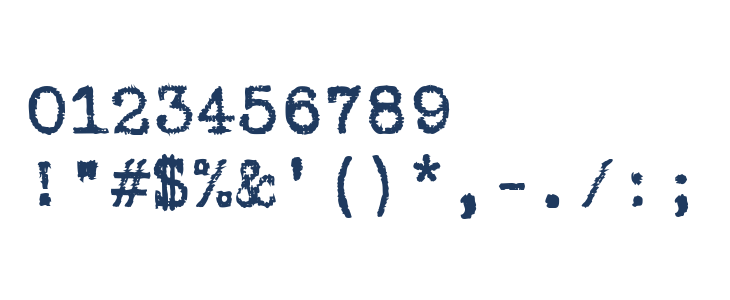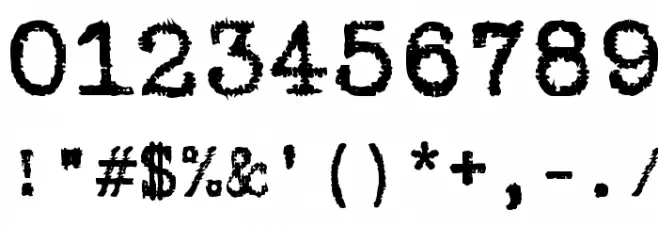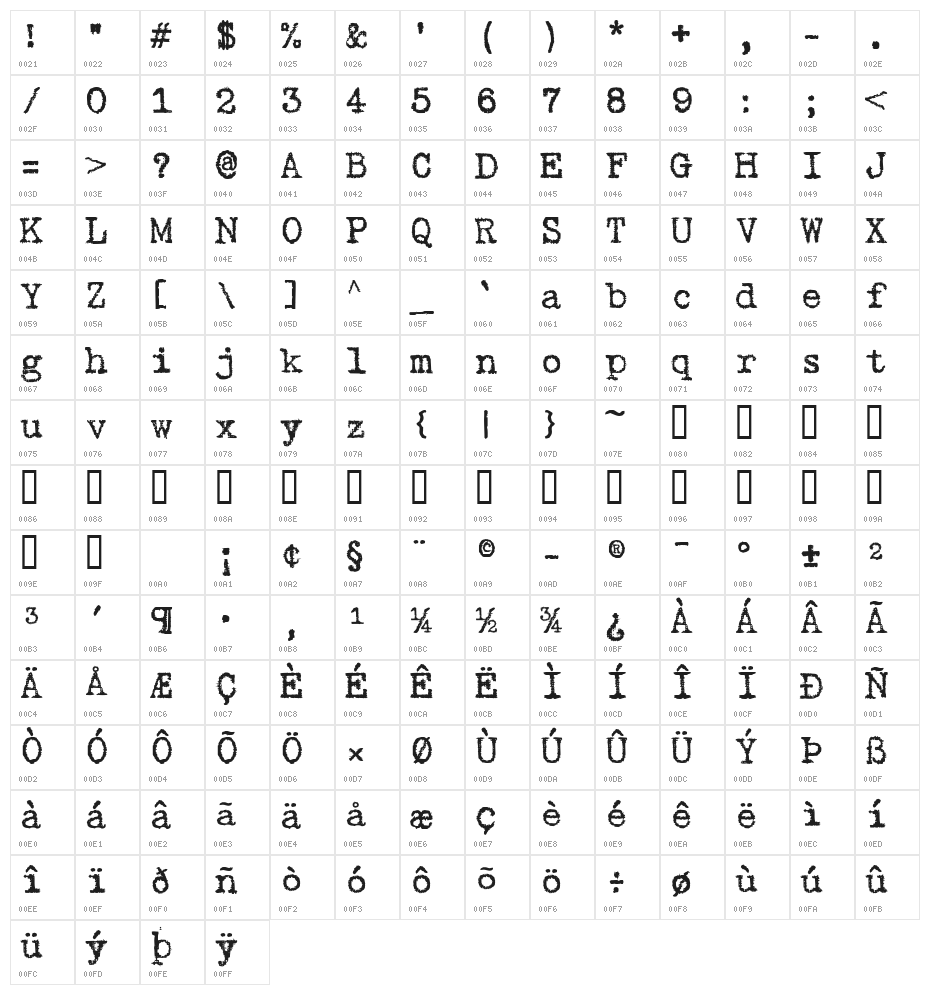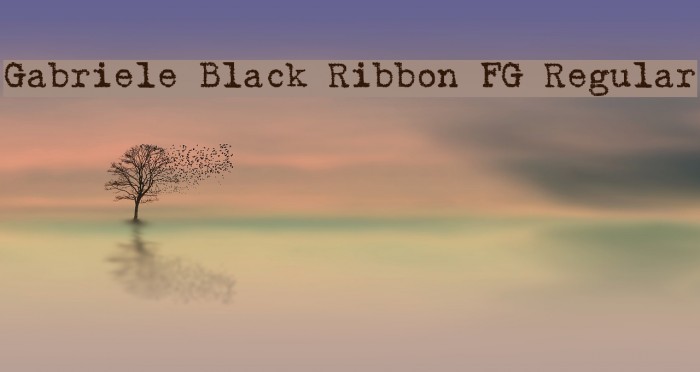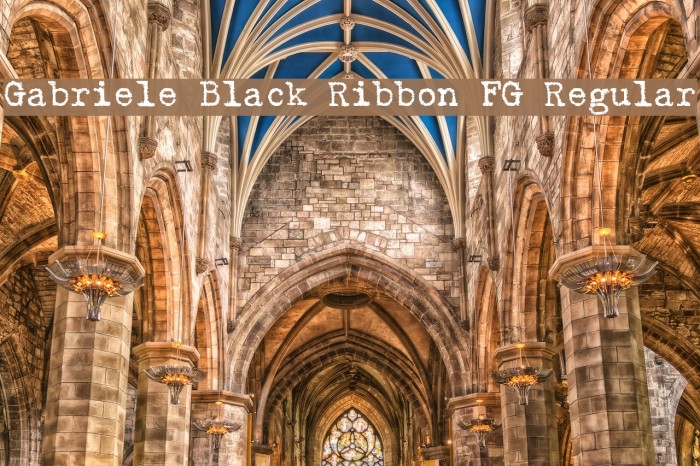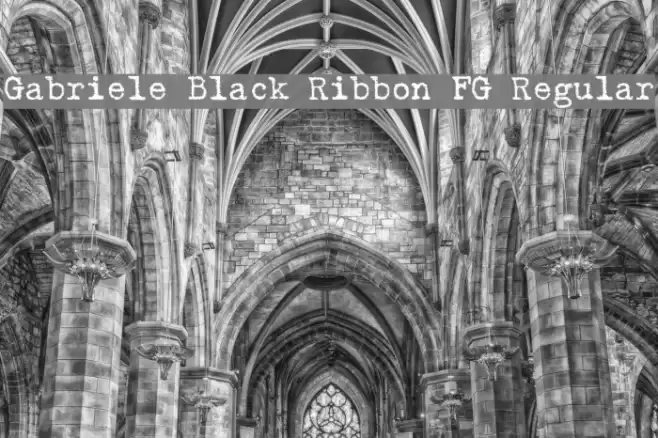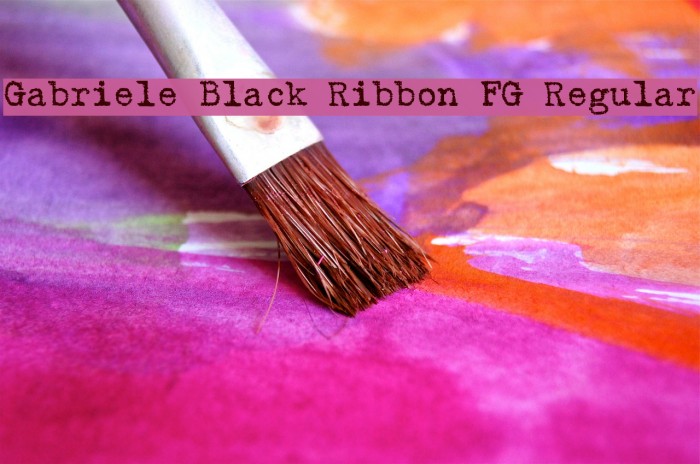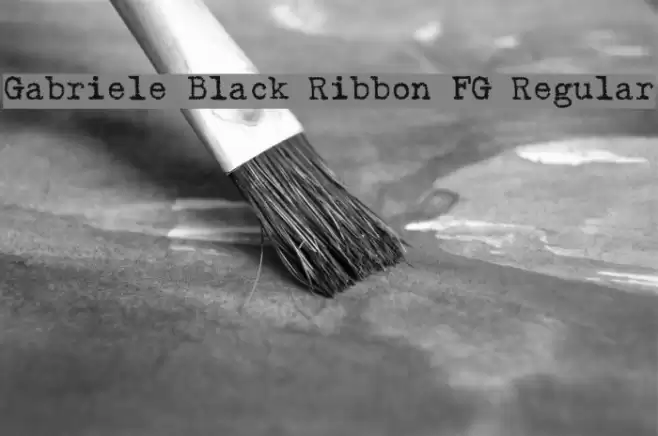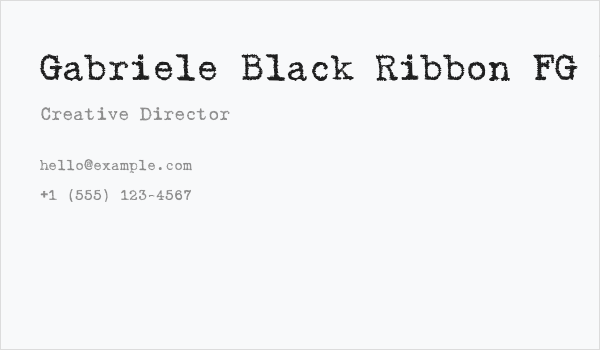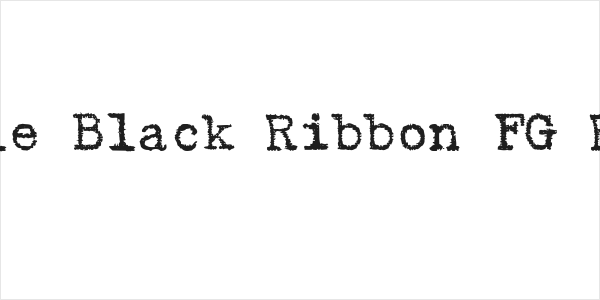
Gabriele Black Ribbon FG Regular Font
Gabriele Black Ribbon FG Regular Description
This font features a distressed, textured appearance that gives it a rugged and vintage feel. The characters are bold and have a rough, uneven edge that suggests a hand-crafted or worn look. The uppercase and lowercase letters maintain a consistent style, with a slightly condensed form that enhances its boldness. Numbers and special characters follow the same design, ensuring uniformity across all glyphs. This font is ideal for projects that require a strong, eye-catching display with a touch of nostalgia or a grunge aesthetic.
| Proposed Projects | Ideal for posters, album covers, vintage-themed designs, and branding that requires a bold statement. |